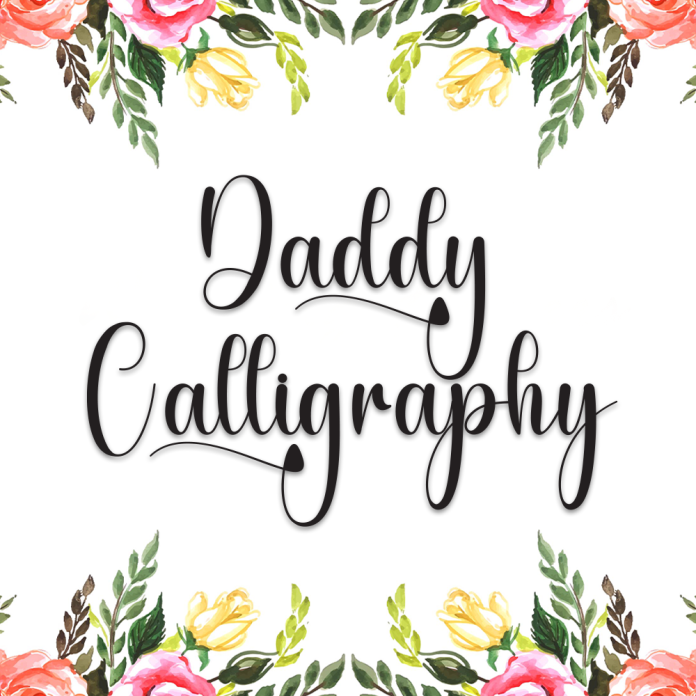
Daddy Calligraphy is an elegant handwritten calligraphy font with smooth, flowing strokes that radiate warmth and sophistication. Perfect for personal projects or professional branding, it adds a touch of class to every design.
Graceful and flowing calligraphy style
Perfect for wedding invitations, luxury branding, and greeting cards
Natural handwritten look with refined curves